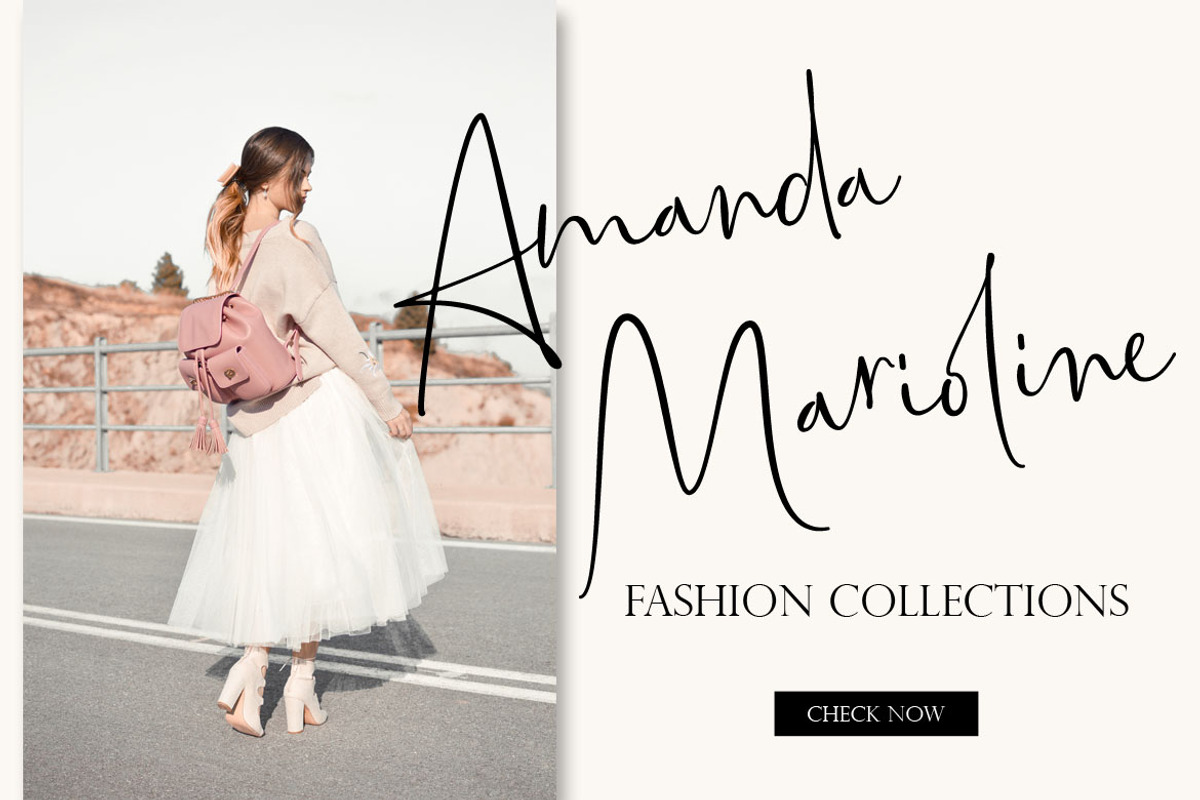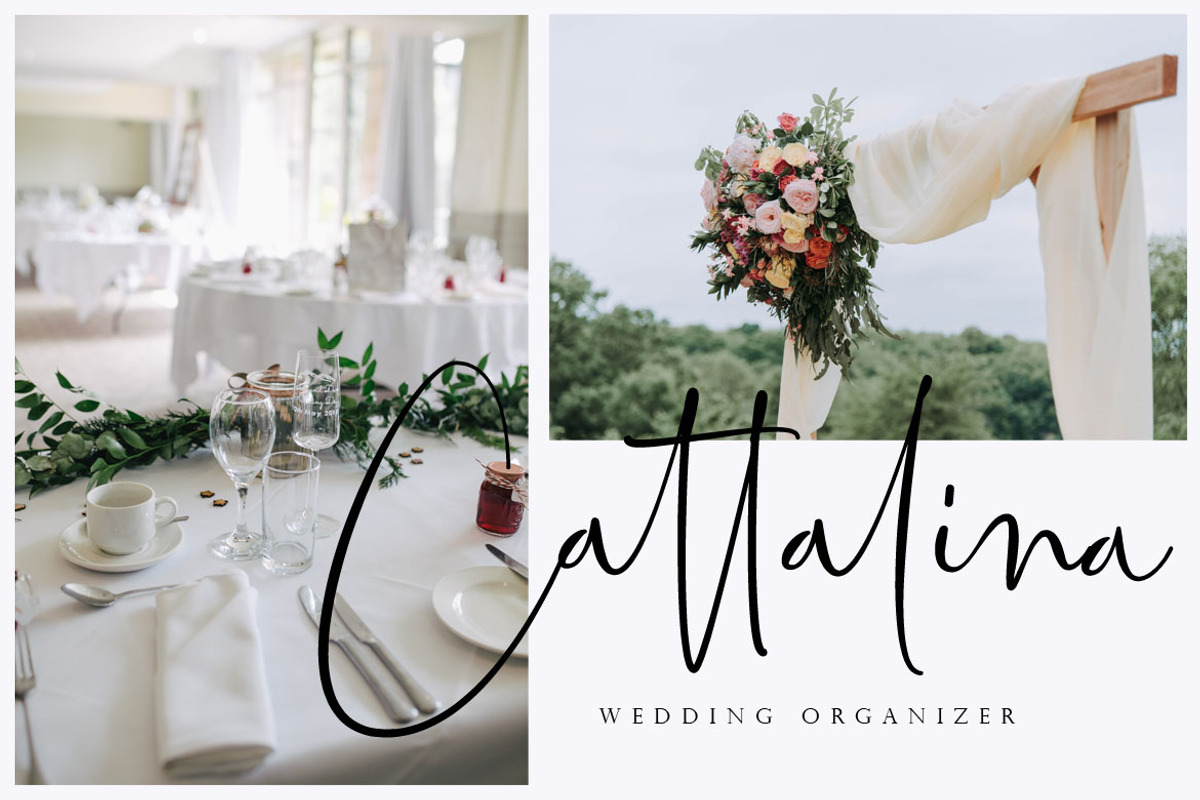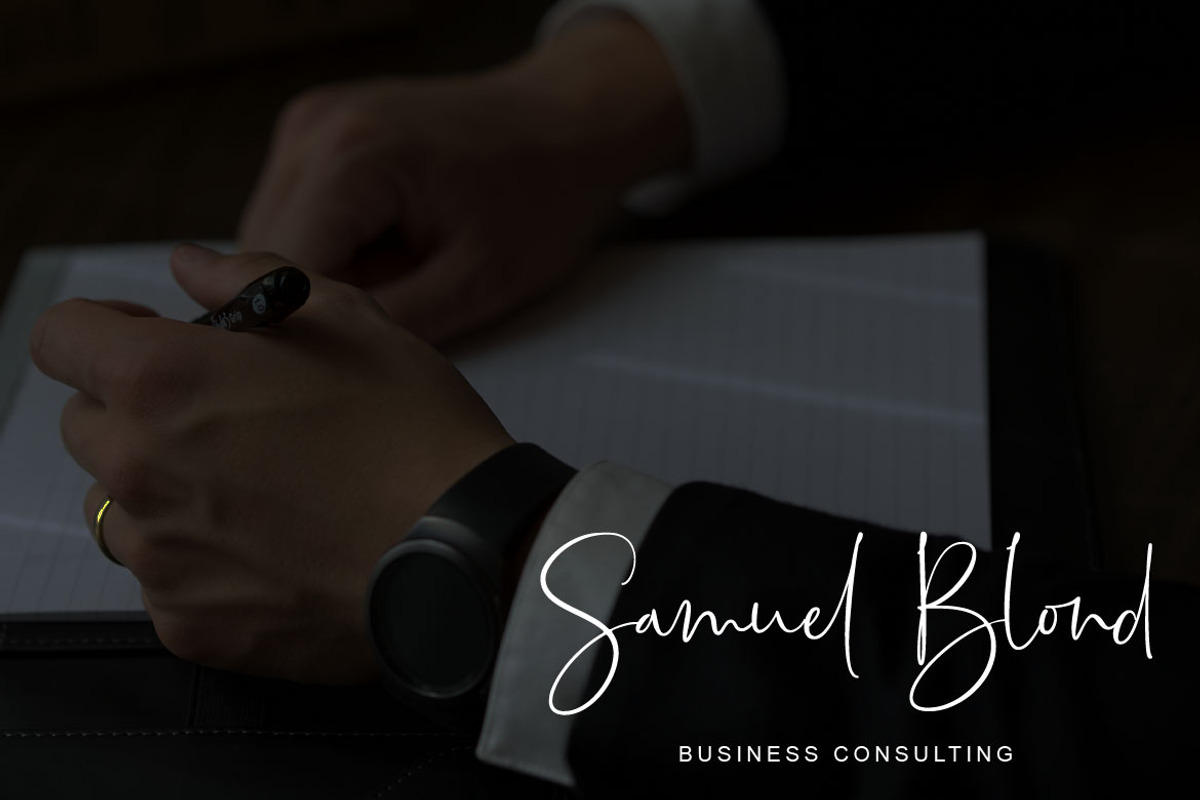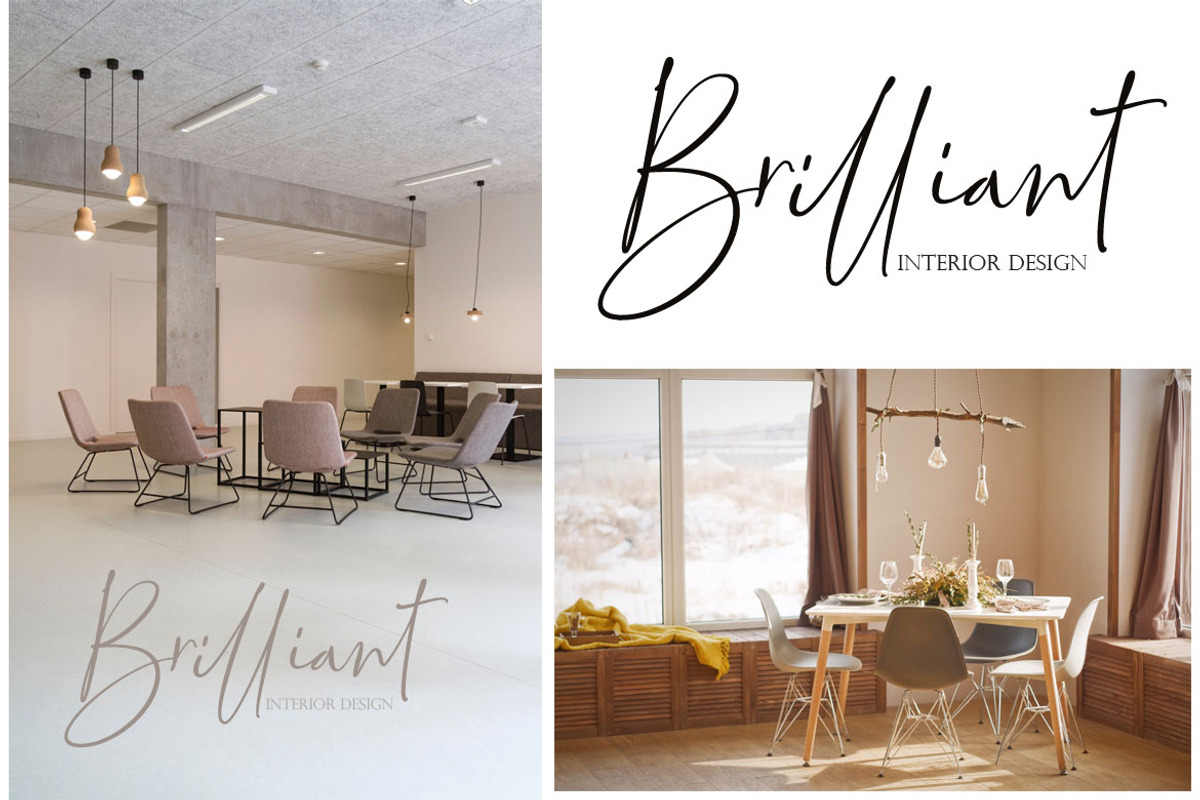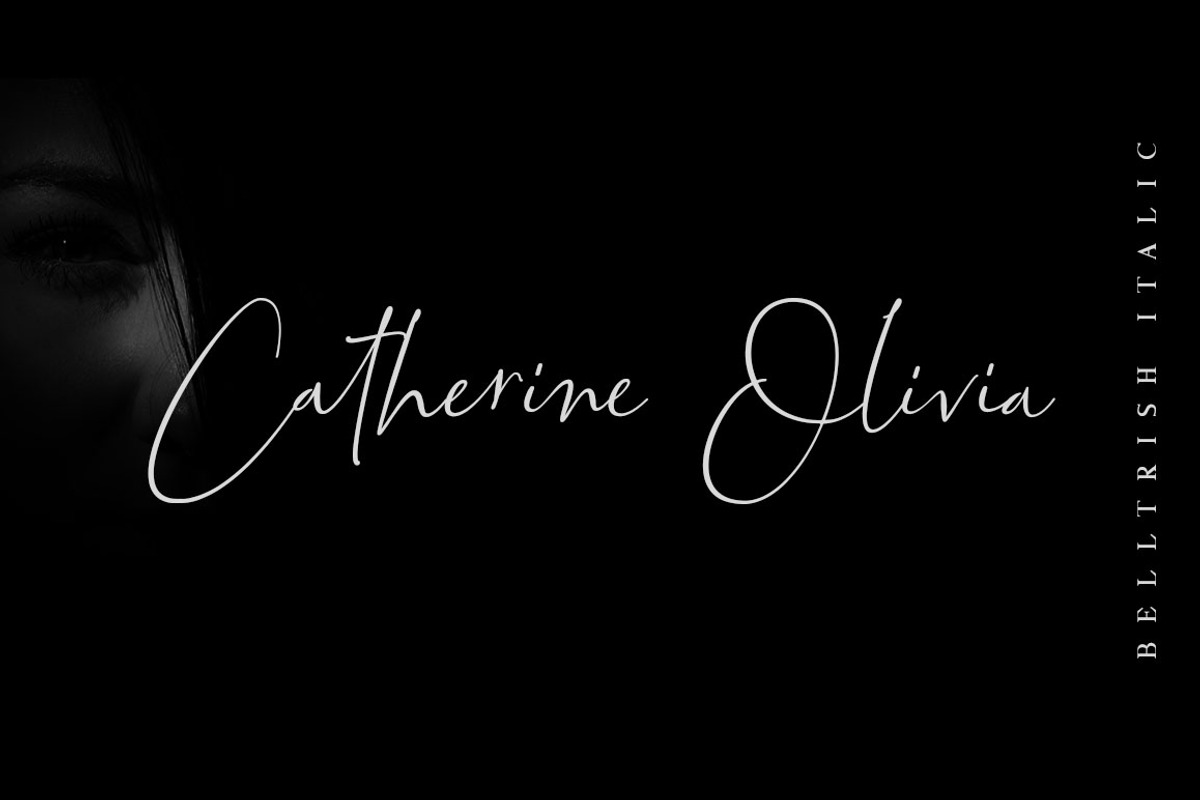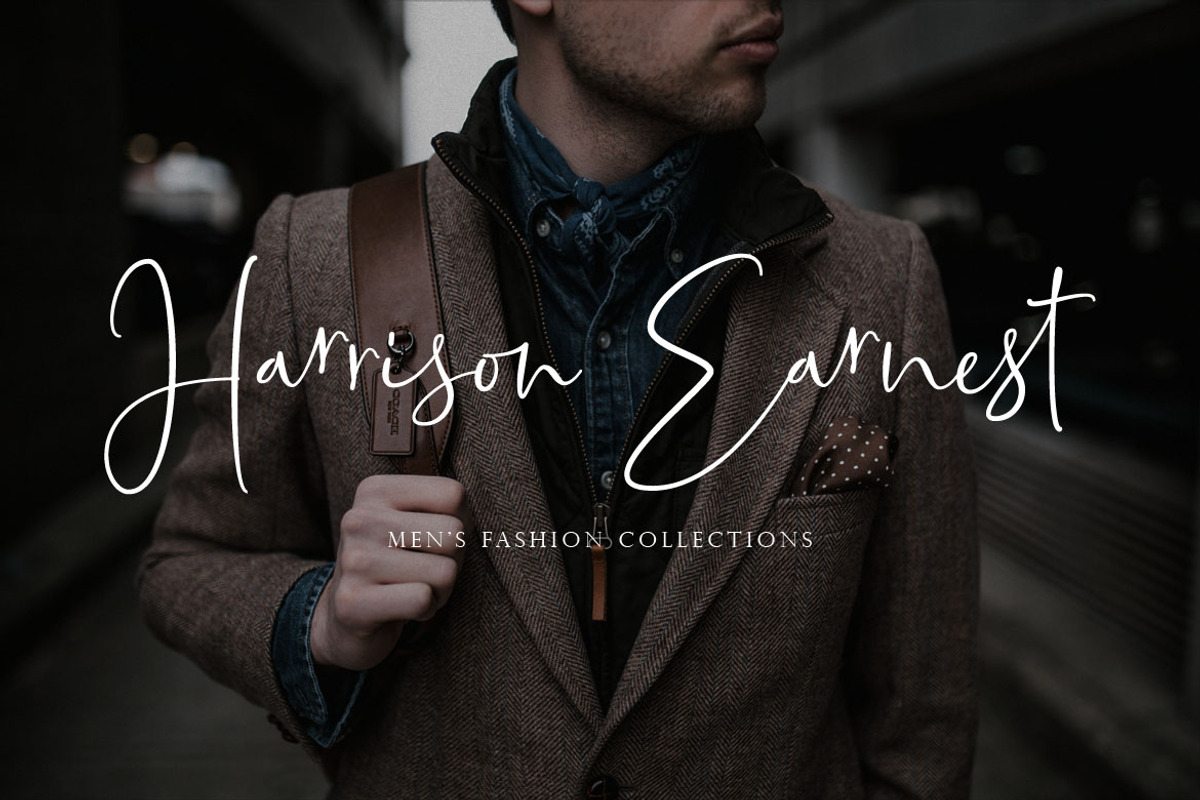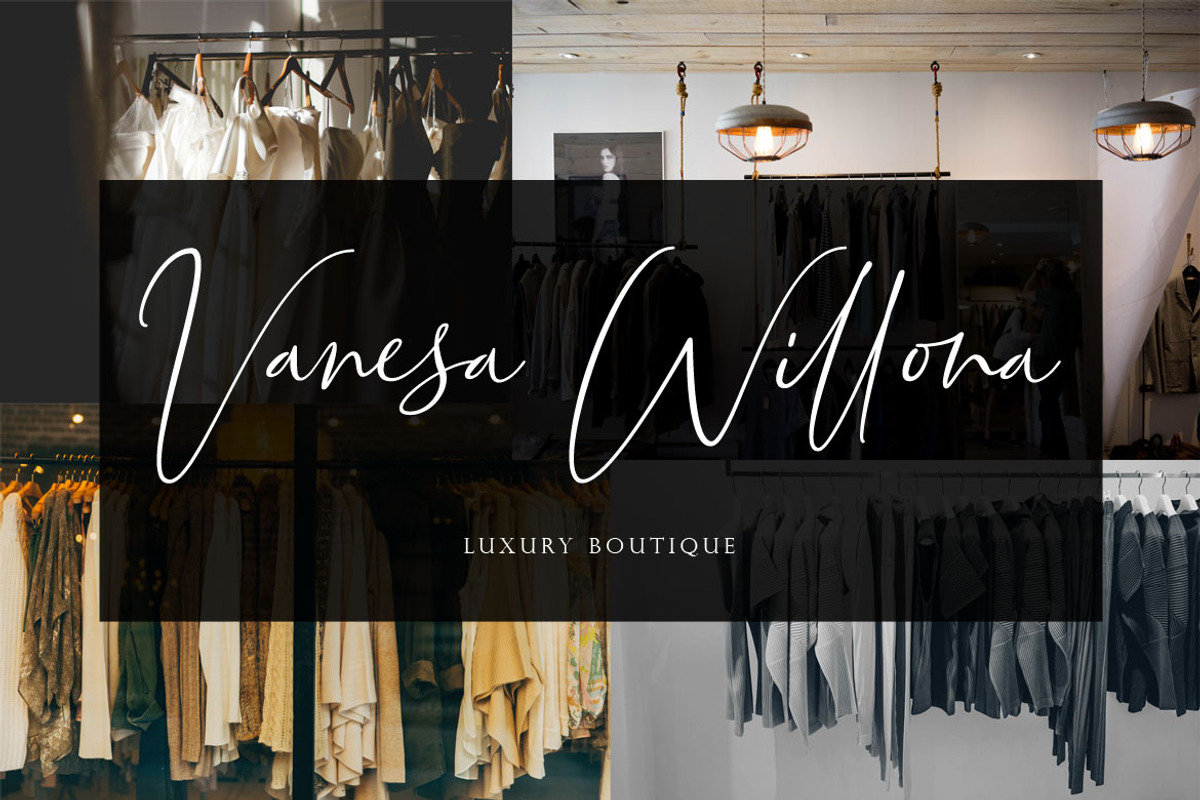
Bettrish // Stylish Signature Font
Introducing our latest product Bettrish Stylish Signature Font.
Bettrish is made to resemble hand scratches, so it looks like a natural style like your own hand scratches.
Bettrish offer beautiful typographic harmony for a variety of design projects, including logos & amp,branding, wedding designs, social media posts, advertisements, product designs, magazines and others.